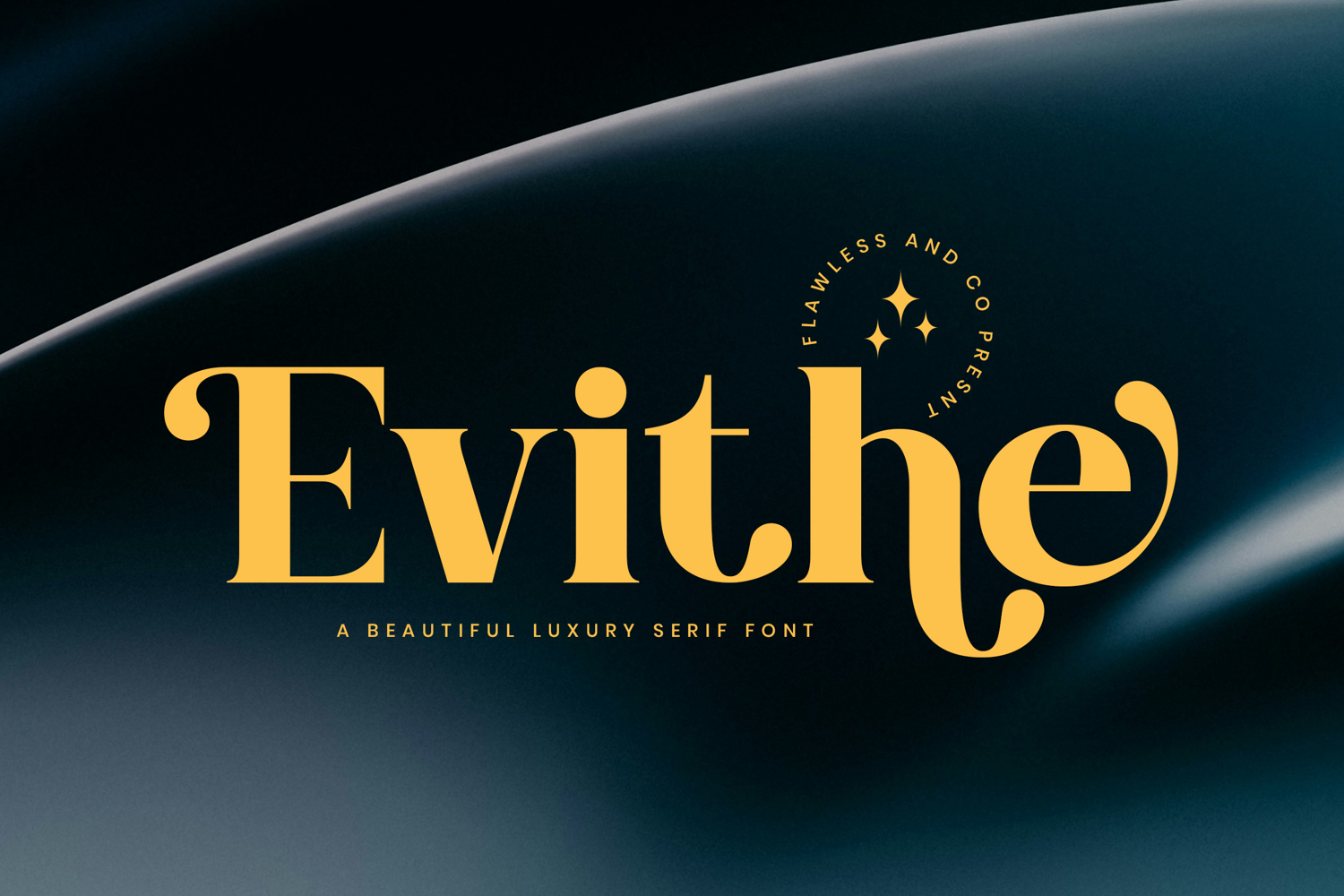
Evithe
EVITHE
EVITHE - Beauty Serif Font
Evithe is a stunning display serif font that embodies elegance and sophistication in every curve. Designed with luxurious flair and attention to detail, EVITHE blends timeless beauty with a modern sensibility, making it the perfect choice for those who seek to elevate their visual identity. From upscale branding to high-end fashion editorials, EVITHE adds a touch of class and refinement that leaves a lasting impression. Its graceful serifs, stylish ligatures, and refined contrast make it an essential typeface for creators who demand both beauty and versatility.
• Alternates & Ligatures
Who Should Use EVITHE?
EVITHE is made for designers, creatives, and brands who want to express elegance, luxury, and timeless style through typography. Whether you're a fashion house, beauty brand, editorial designer, or wedding stationery creator, EVITHE offers the perfect blend of refinement and modern charm to elevate your project’s visual appeal.
A Must-Have Font for Brand, Logo, and Wedding or Beauty Fashion Creators and Designers
EVITHE is an essential typeface for anyone crafting high-end visual identities. With its graceful serif structure and luxurious detailing, this font brings sophistication to brand logos, wedding stationery, fashion editorials, and beauty packaging. It's the ideal companion for creatives who want to infuse their designs with elegance, femininity, and timeless class.
Why Choose EVITHE for Brand and Logo Projects?
EVITHE is more than just a font — it’s a refined design statement that brings grace and luxury to your visual identity. Its high-contrast strokes and classic serif elegance create a perfect balance between timeless beauty and modern sophistication. Whether you're designing for a wedding brand, a high-end fashion label, or a premium lifestyle product, EVITHE adds a distinct charm and polish that instantly elevates your work.
Suitable For:
• Luxury branding and packaging
• Wedding invitations and stationery
• Fashion and beauty logos
• Editorial headlines and magazine layouts
• Social media graphics with elegant aesthetics
• Feminine product labels and cosmetics branding
• High-end promotional materials